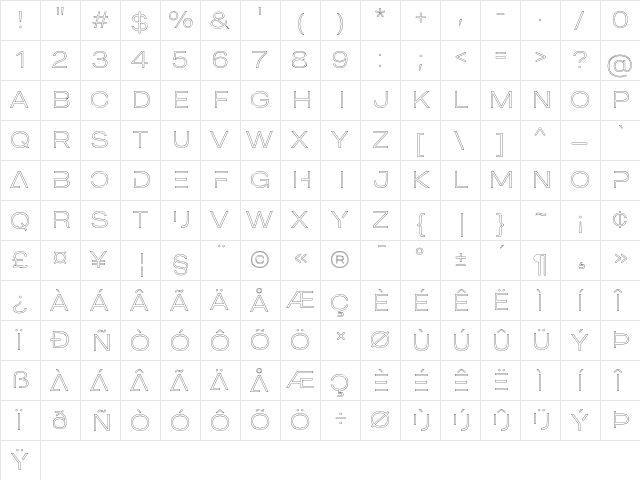
MADE Outer Sans Outline Alt Thin
| Foundry | MadeType |
| Designer | MadeType |
Design Context for MADE Outer Sans Outline Alt Typeface
MADE Outer Sans Outline Alt is built around its visual character rather than neutral utility — its distinctive forms are designed to make an impression at display sizes. Its slender proportions lend an understated elegance to any composition.
Font Pairing: Pair with a clean neutral sans-serif for body copy to let MADE Outer Sans Outline Alt's character lead without overwhelming the composition.
Pro Tip: Treat MADE Outer Sans Outline Alt as the centrepiece of your typographic hierarchy. One strong heading set in a decorative face can carry an entire layout.